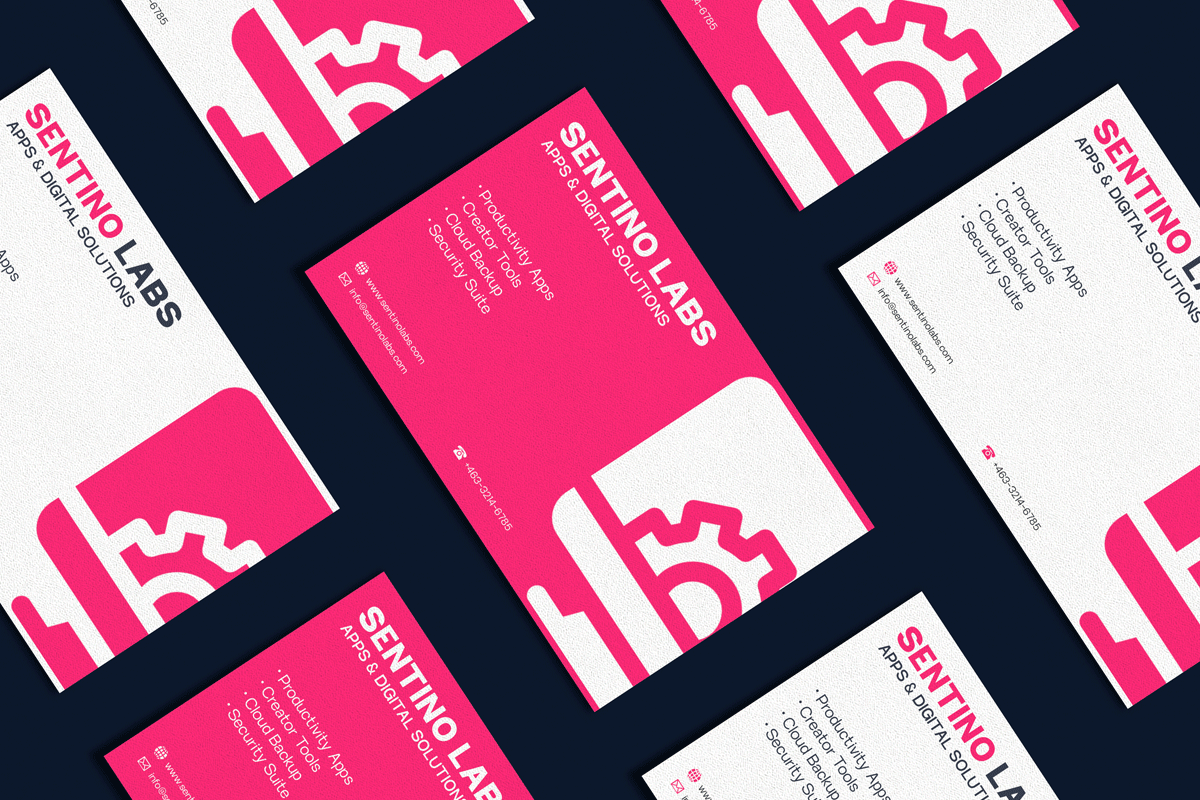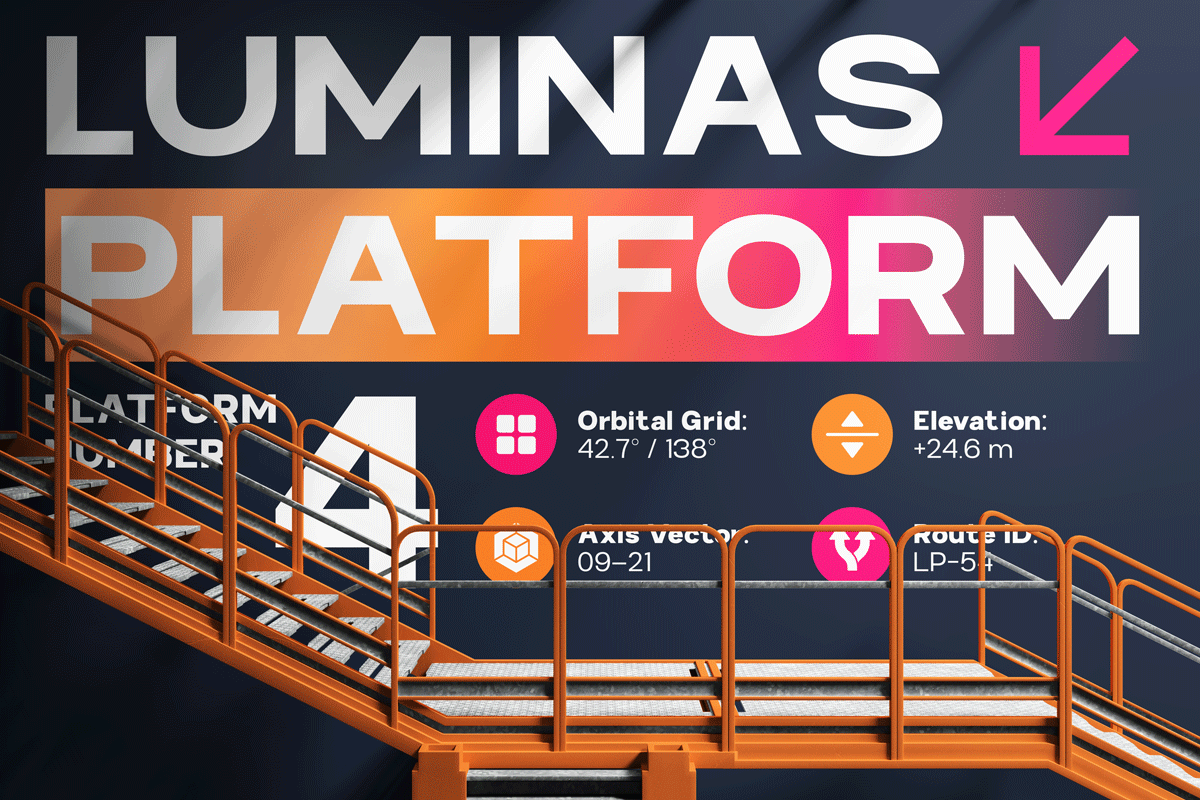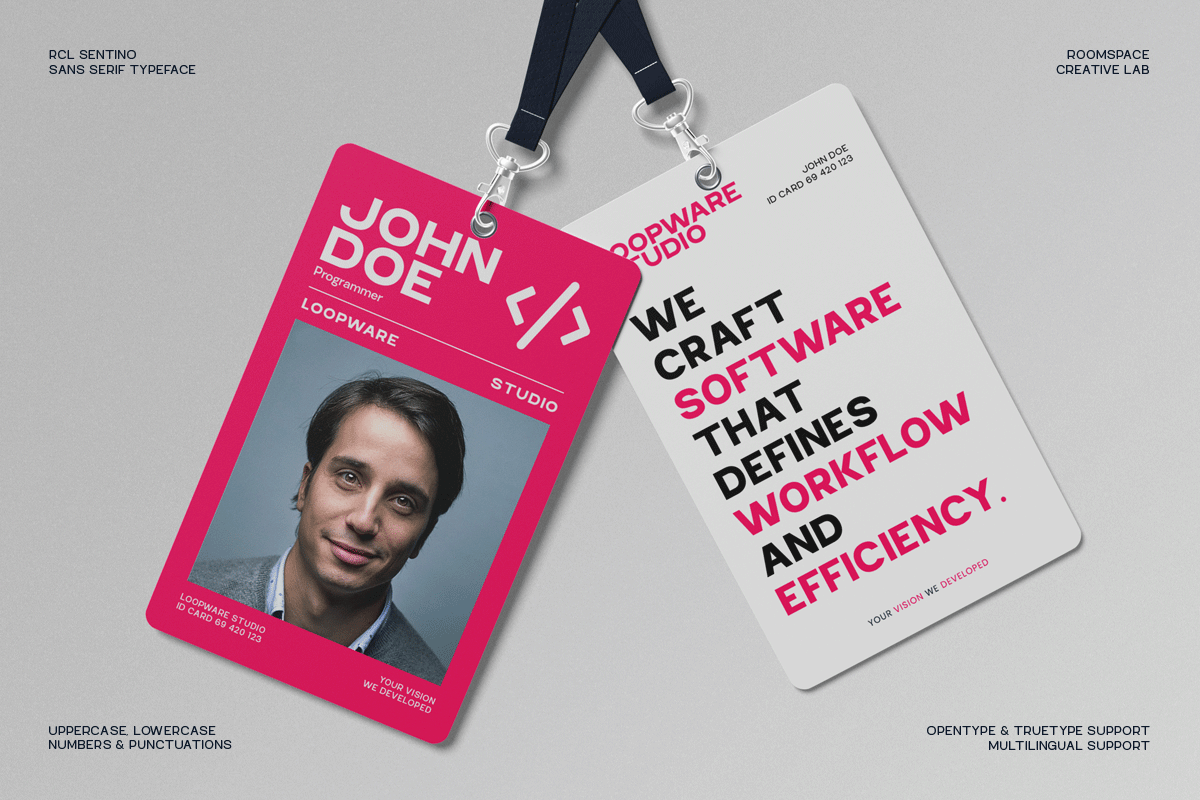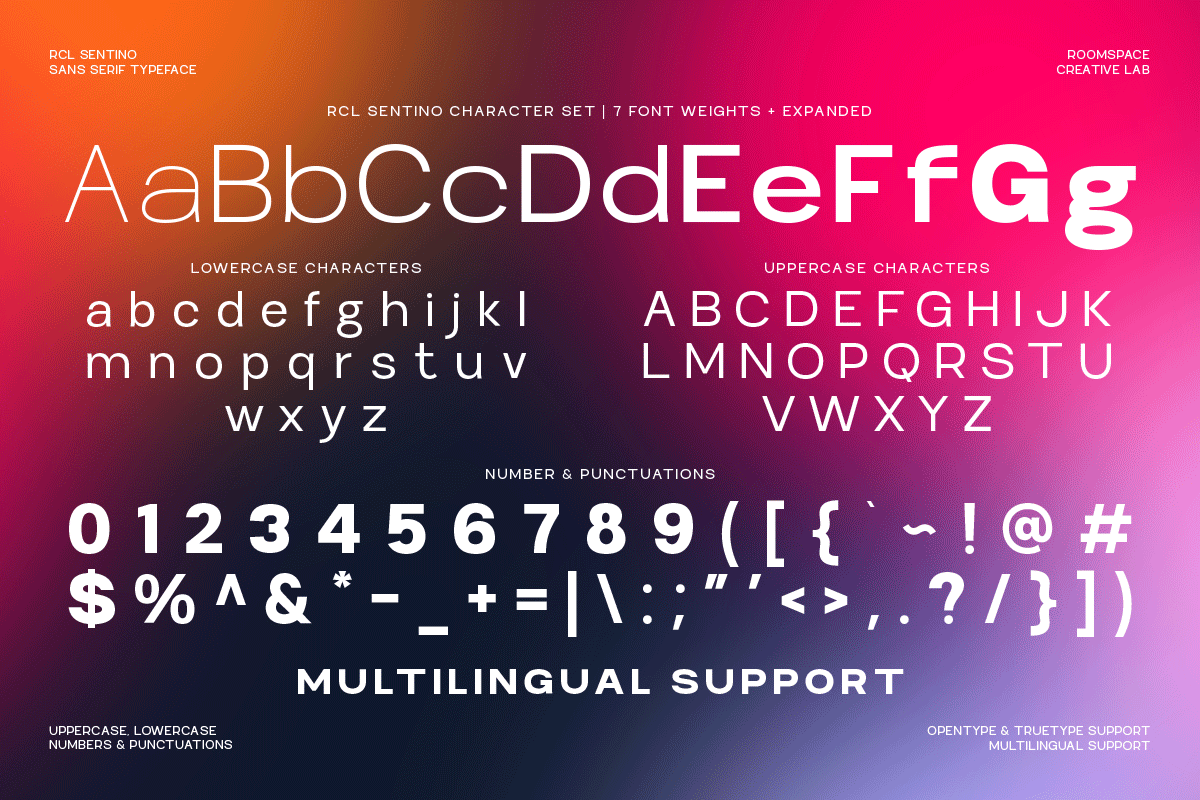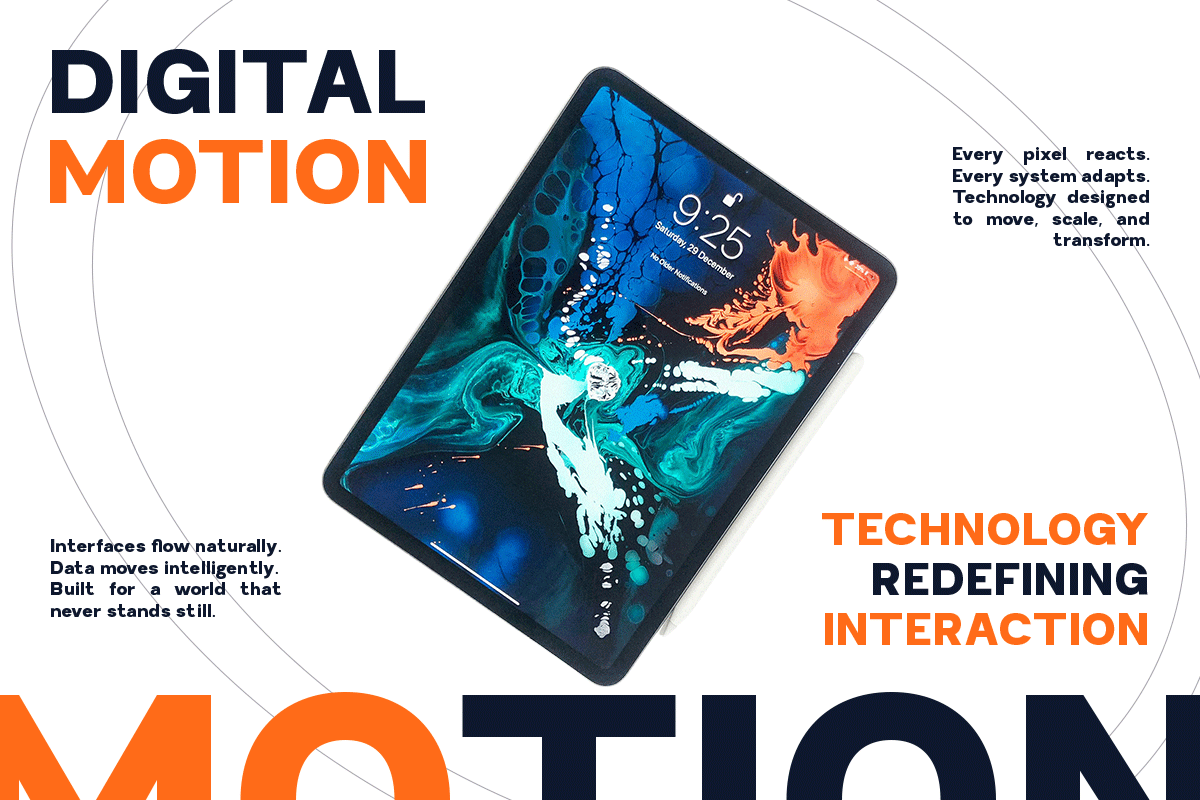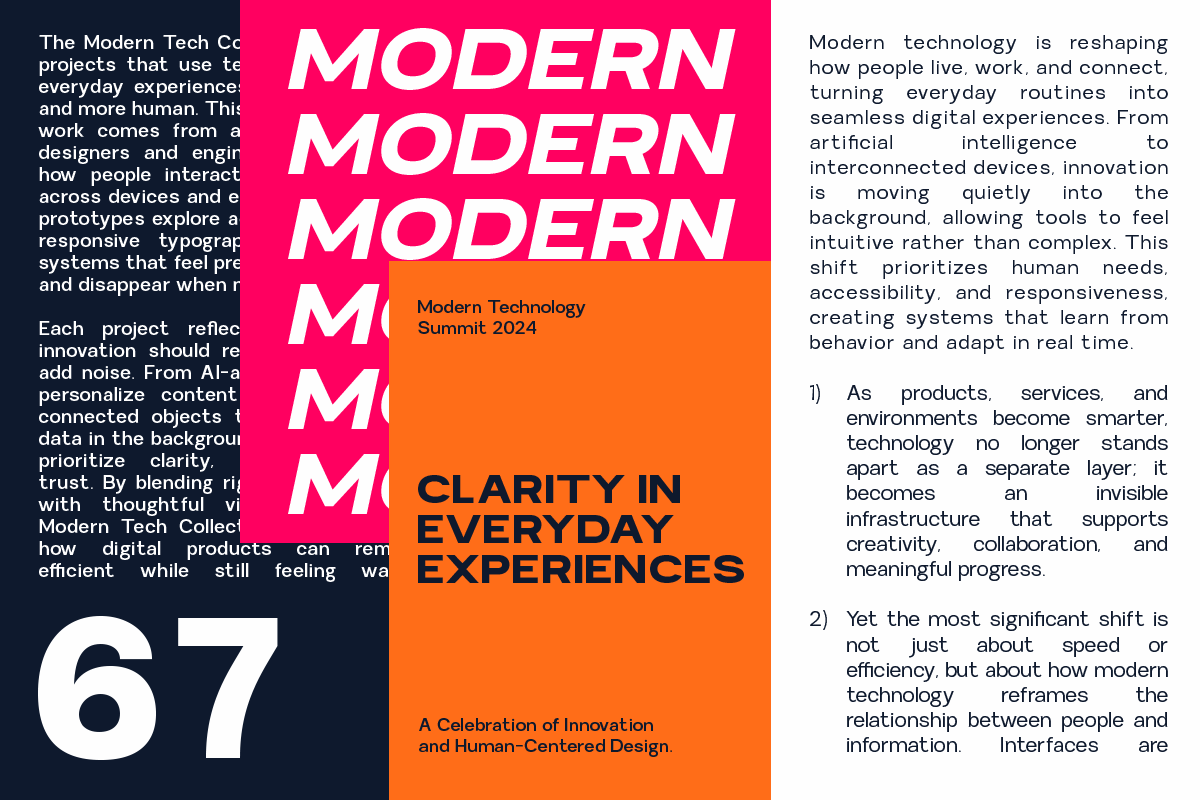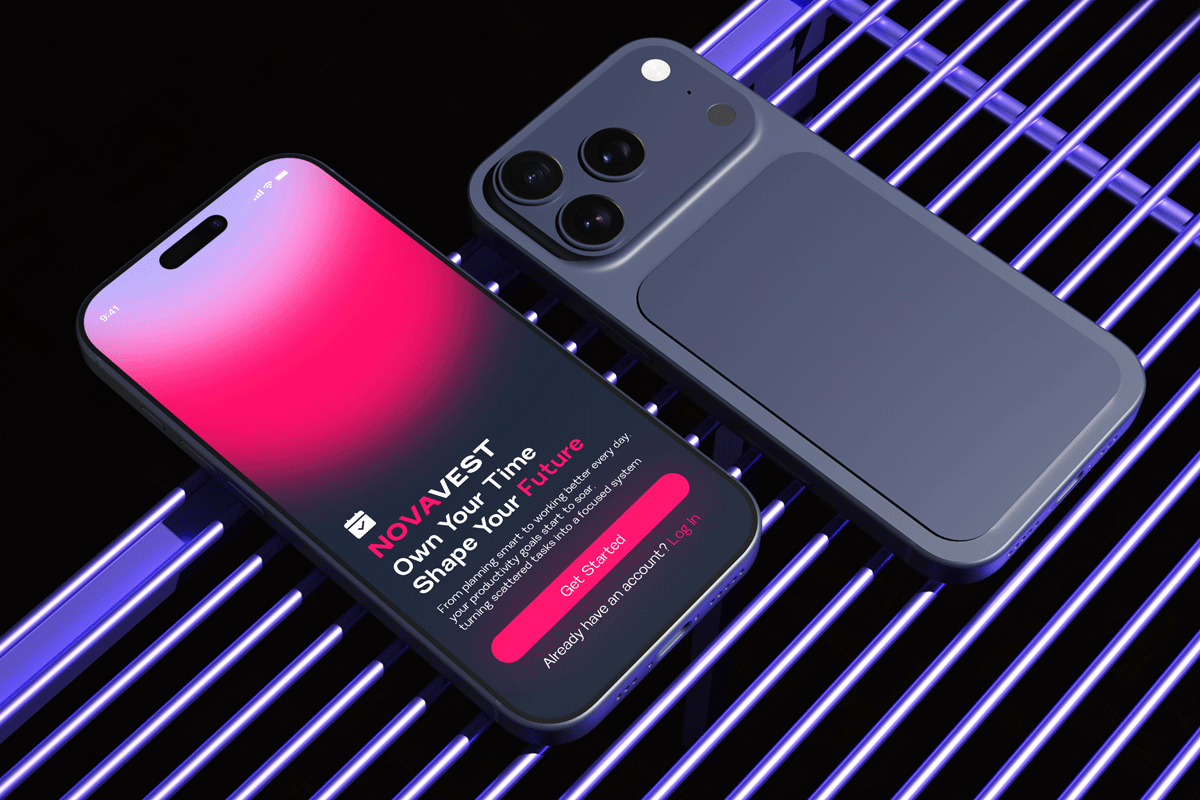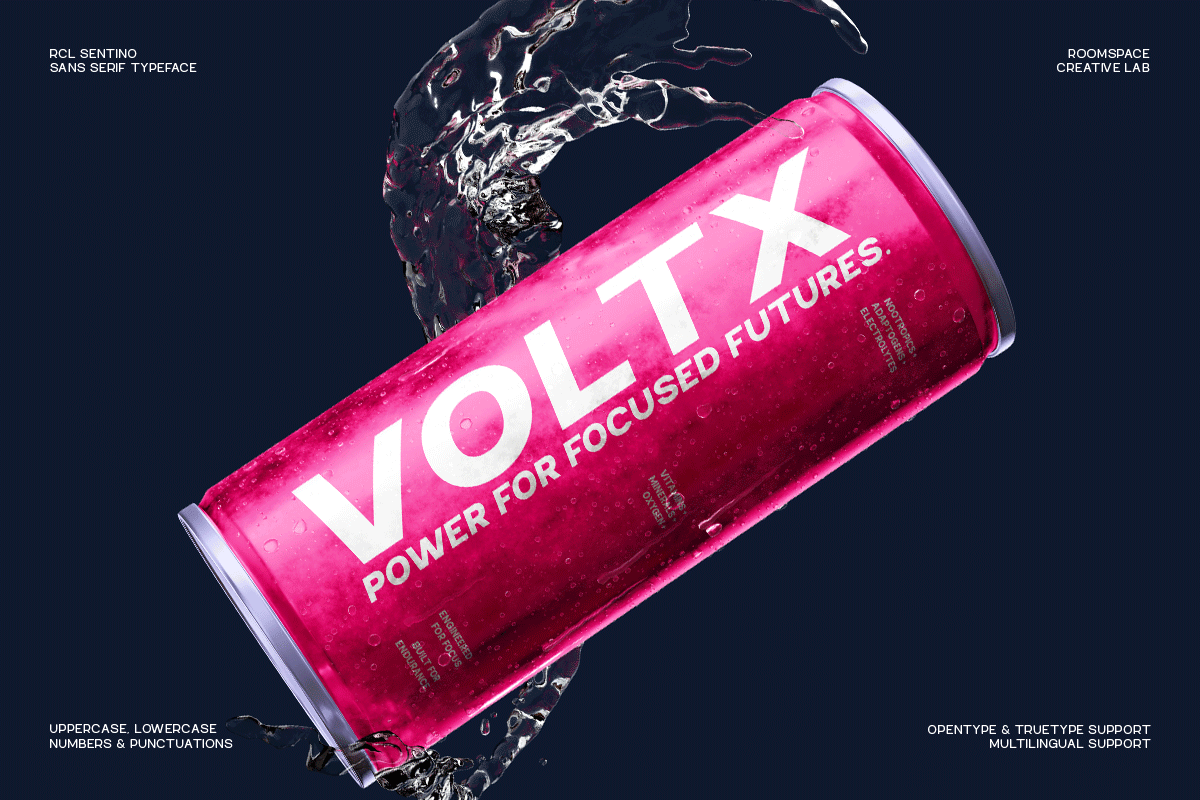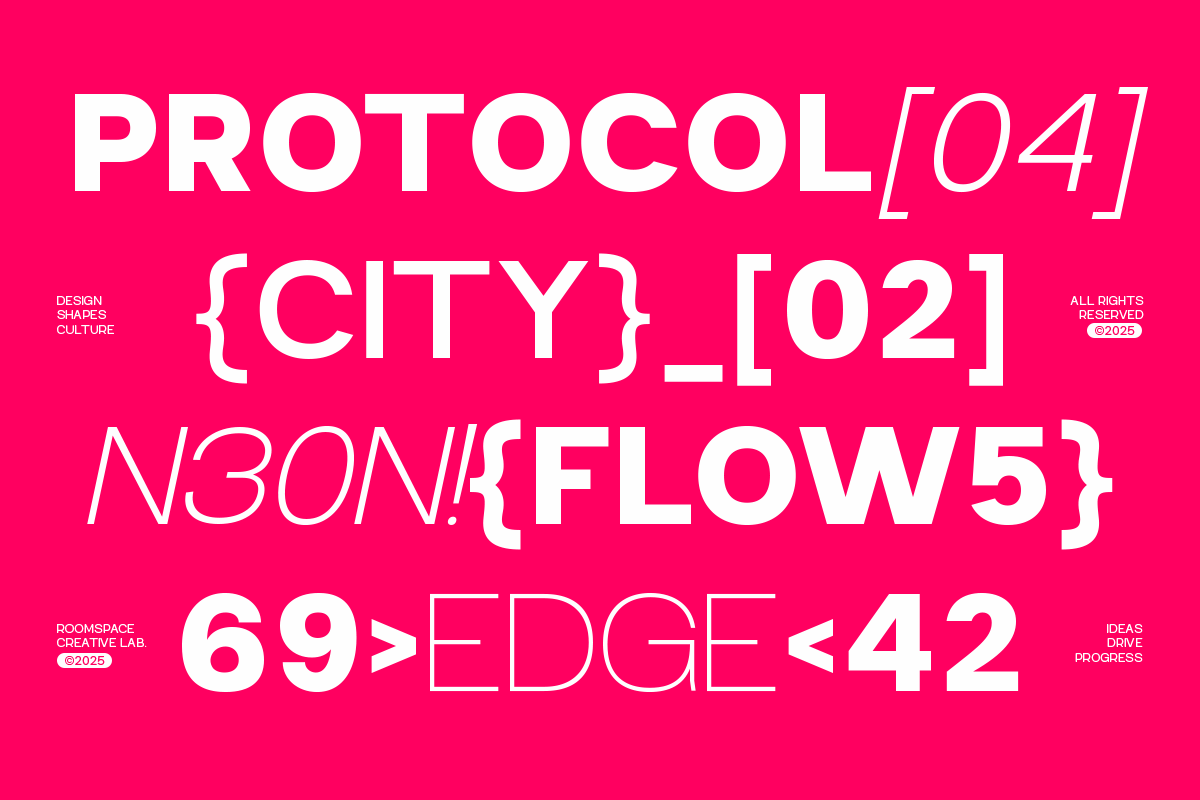
Sentino – A Clean Minimalist Sans
Sentino is a modern minimalist sans-serif font family designed for clarity, balance, and contemporary aesthetics. Built with clean proportions and neutral shapes, Sentino delivers excellent readability while maintaining a refined visual presence. With 7 weights and expanded styles, Sentino is perfect for logos, branding systems, web interfaces, editorial layouts, and professional digital products.
- 7 Weights (Thin to Bold – Expanded)
- Modern minimalist sans-serif design
- Clean kerning and high readability
Perfect For : Branding, UI/UX, web design, editorial layouts, corporate identity, presentations, digital products, and modern publishing.